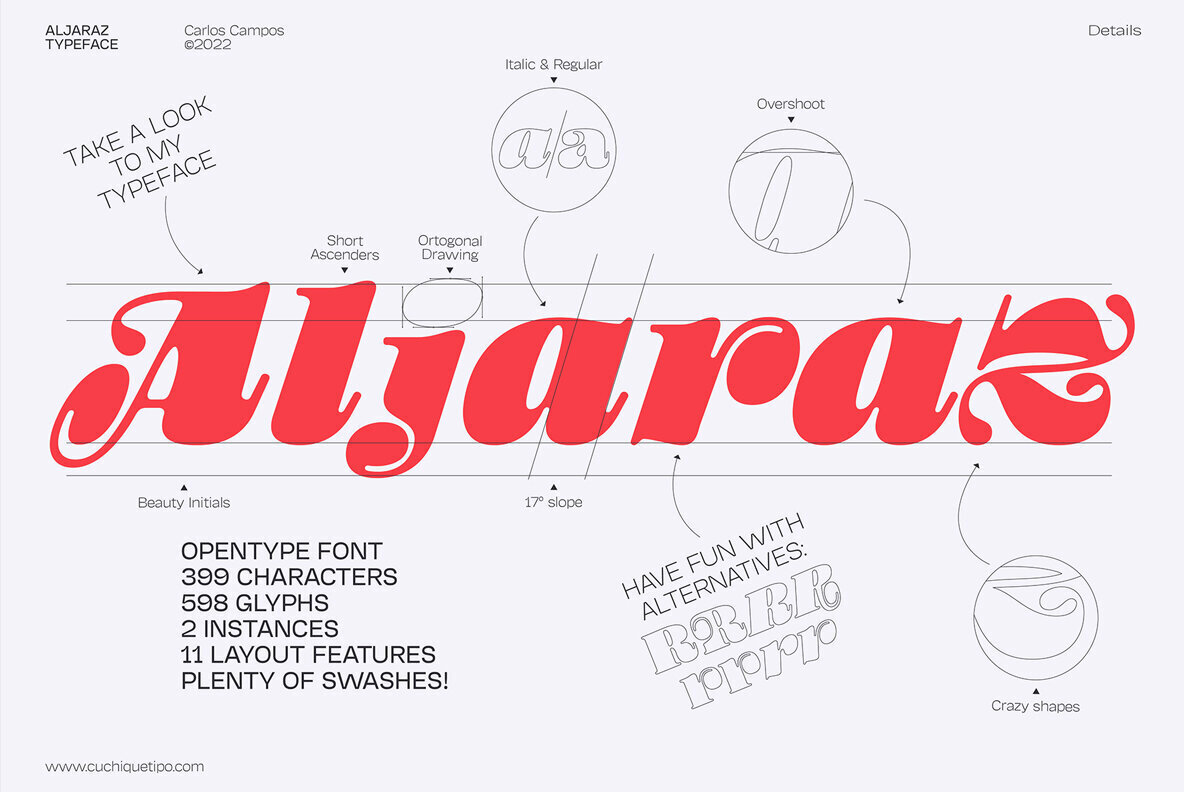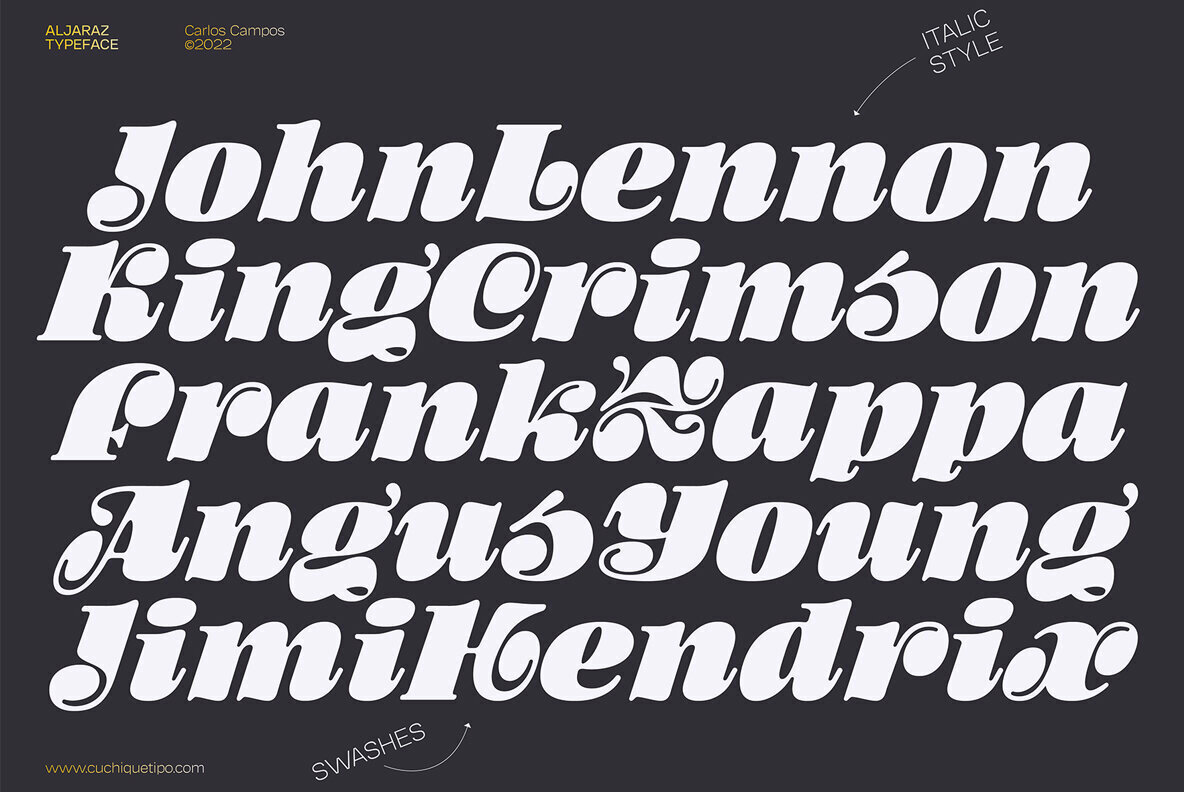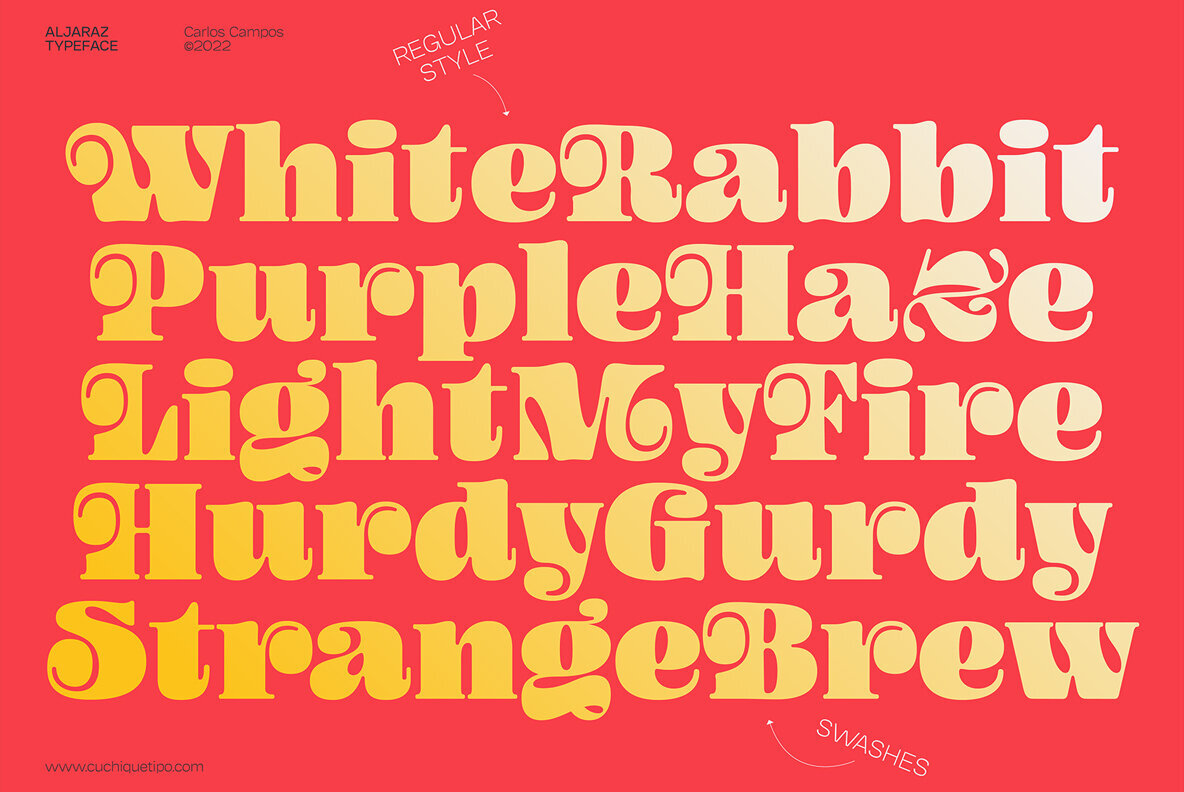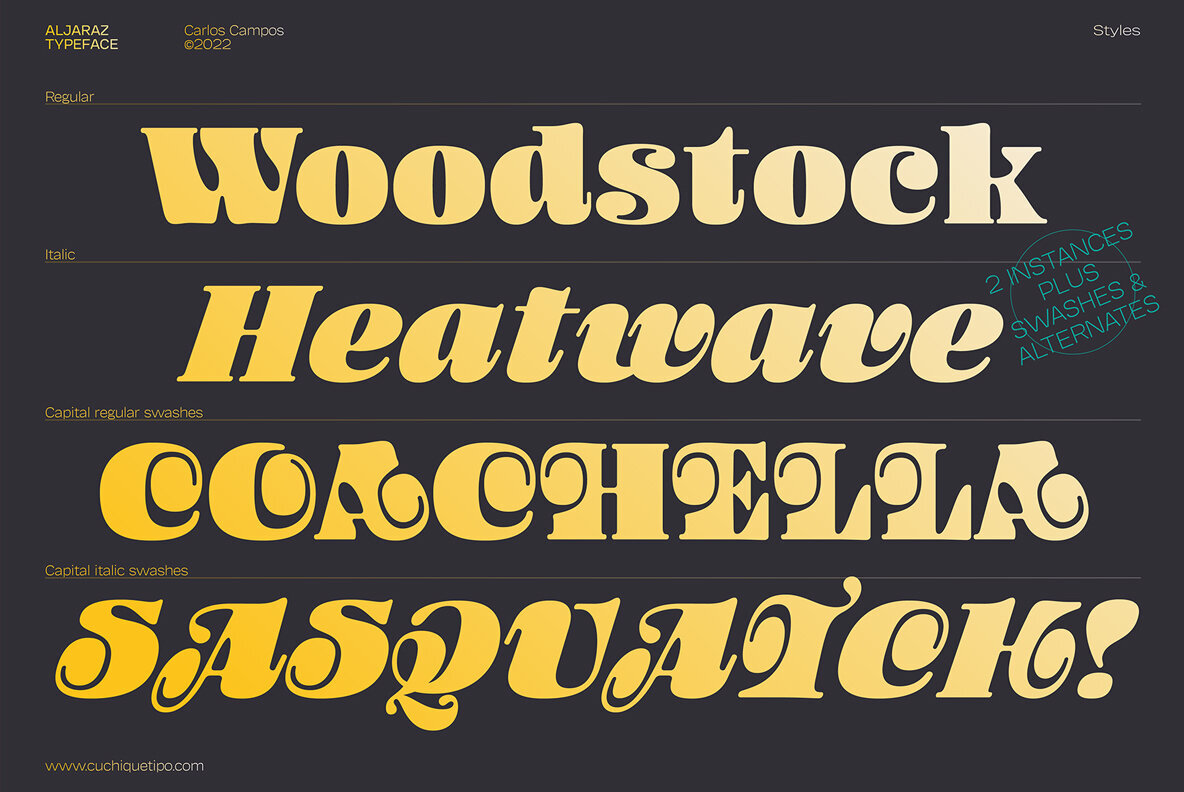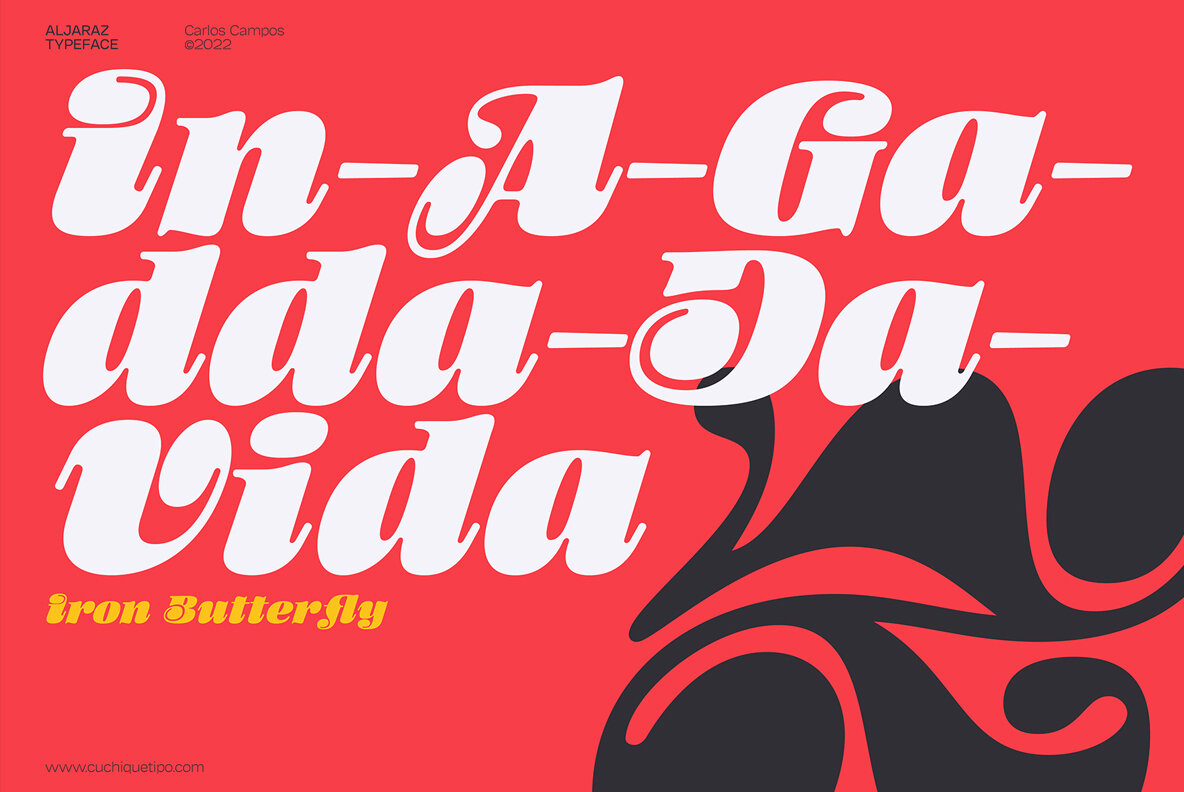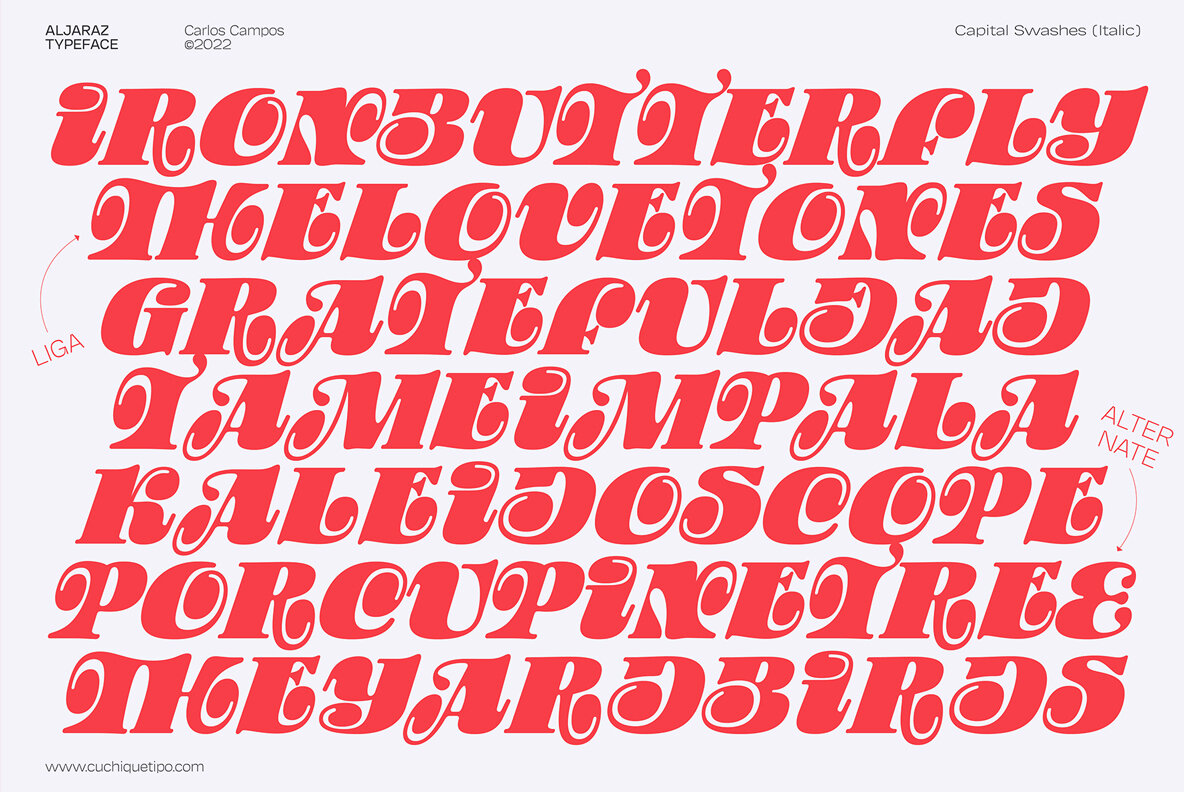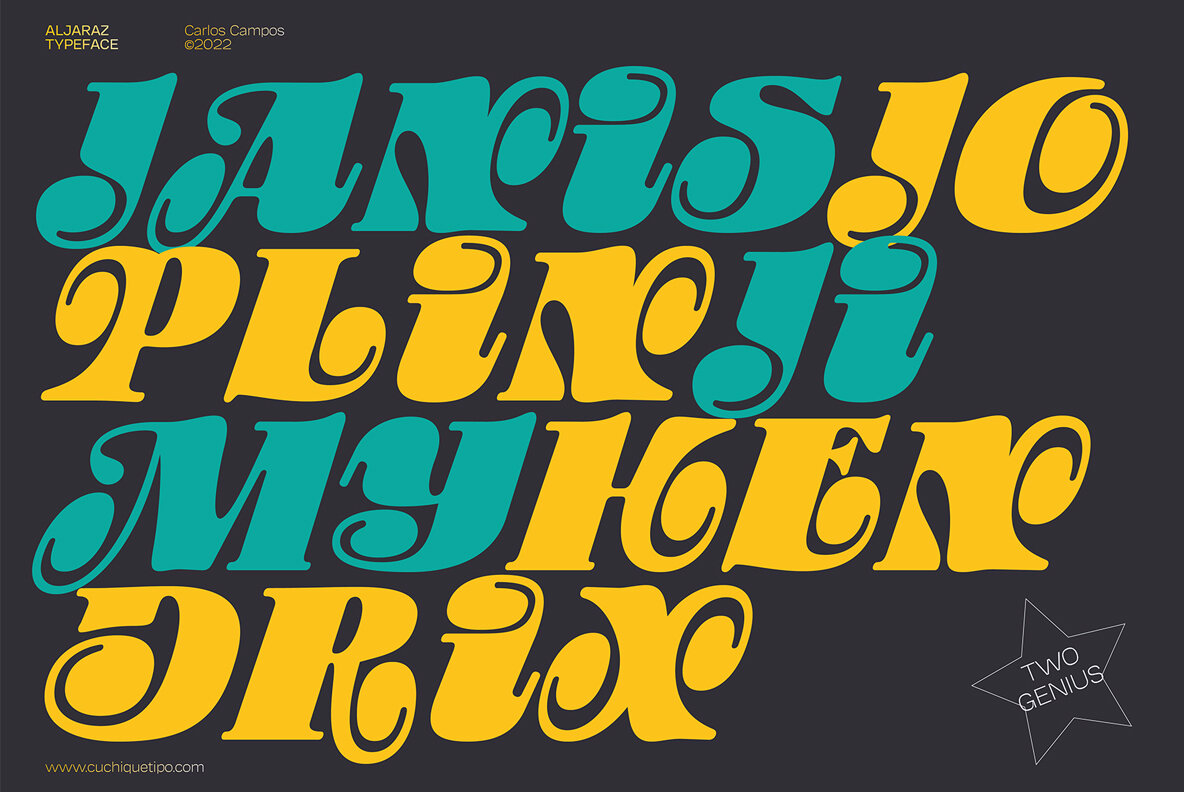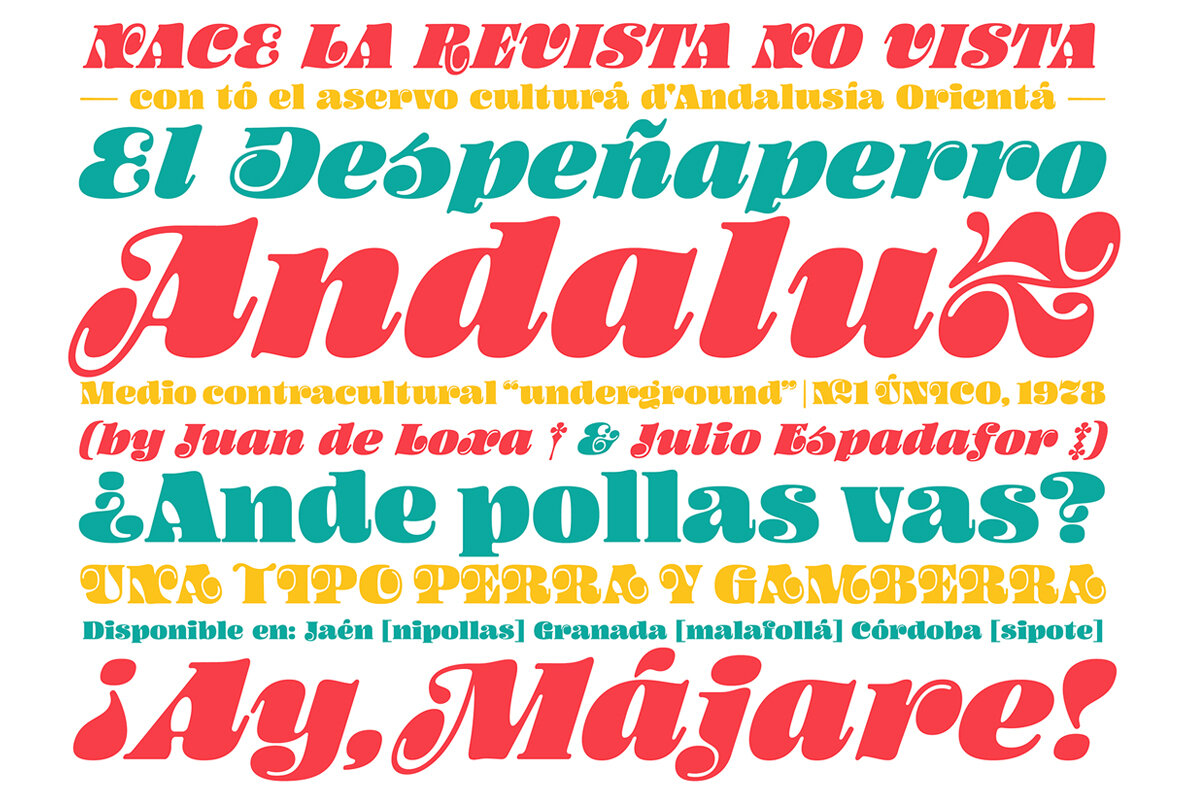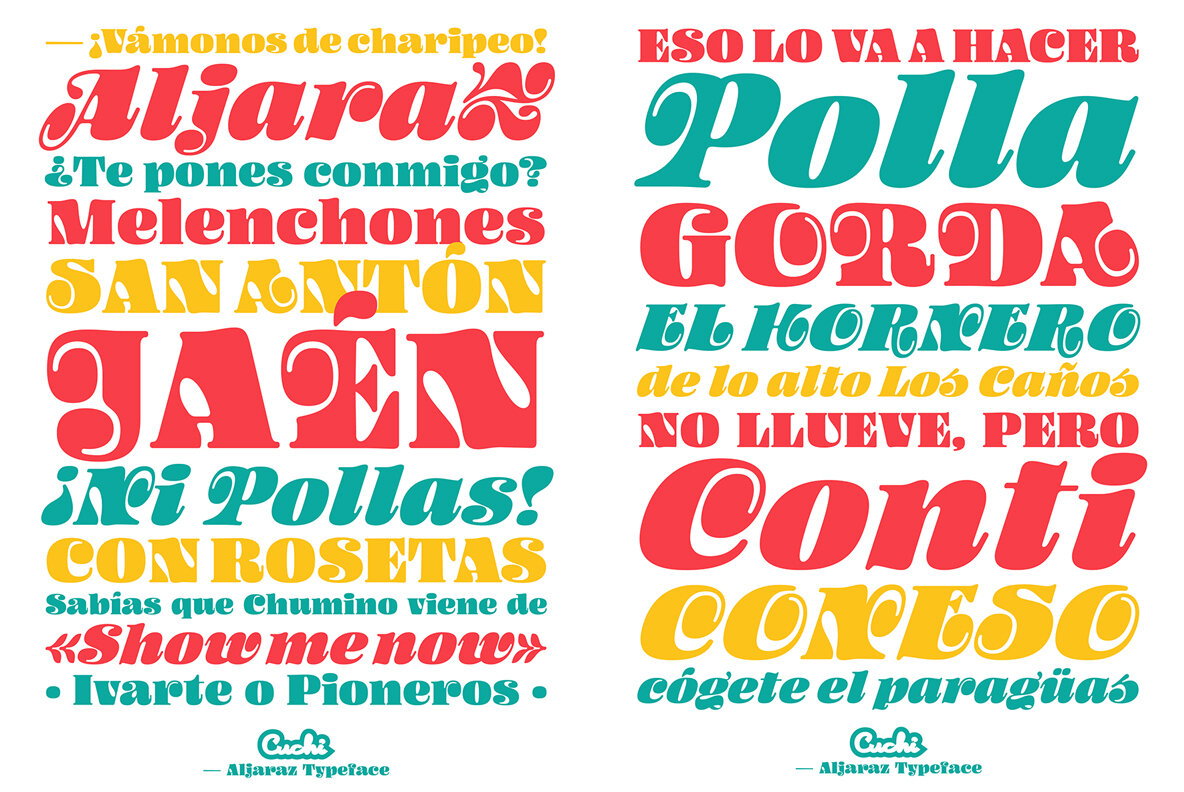
Aljaraz Font
Carlos Campos' Aljaraz Font (& Web Fonts) is the perfect way to add a touch of fun and rebellion to your design projects. Inspired by the "Fat face" letters of the early 19th century, Aljaraz features bold, curvy letters with a hint of psychedelic distortion. This makes it ideal for creating 60s-style designs or simply catching attention with short, powerful displays of text.
With regular and italic variable styles available, as well as an alternative set of capital letters with even more distortion, there's plenty of ways to make Aljaraz your own. So let this groovy font inspire you to create something truly original!